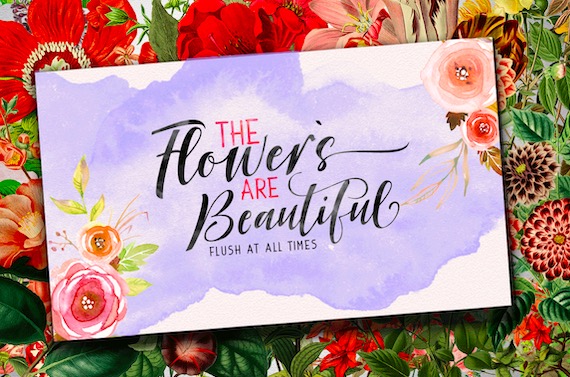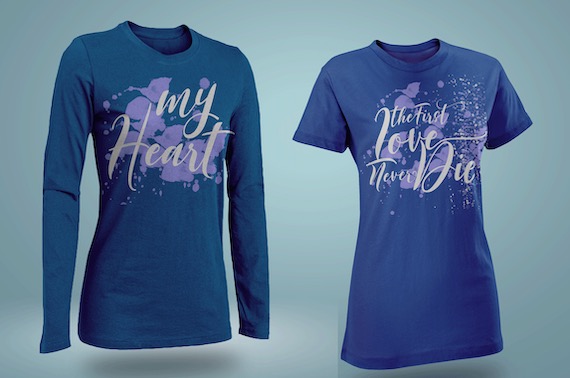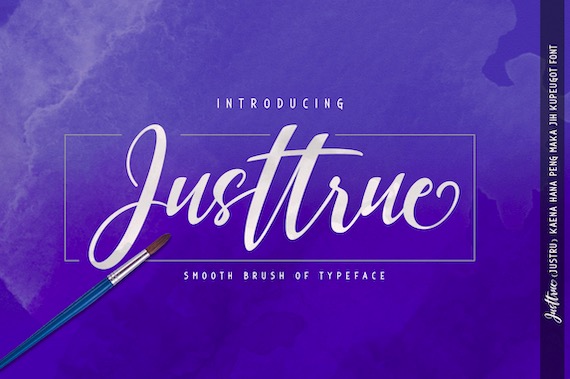
JUSTTRUE Font is a modern classy versatile handwritten script typeface that includes 3 unique & gorgeous styles. This JUSTTRUE Font was created and shared by Varianskills. This is the perfect choice for a personal branding project. Can be used for various purposes such as headings, logos, wedding invitations, t-shirts, letterhead, labels, news, posters, badges, etc. To enable the OpenType Stylistic alternates, you need a program that supports OpenType features such as Adobe Illustrator CS, Adobe Indesign, and CorelDraw X6-X7. Include font files:
Justtrue Handwritten Script Font